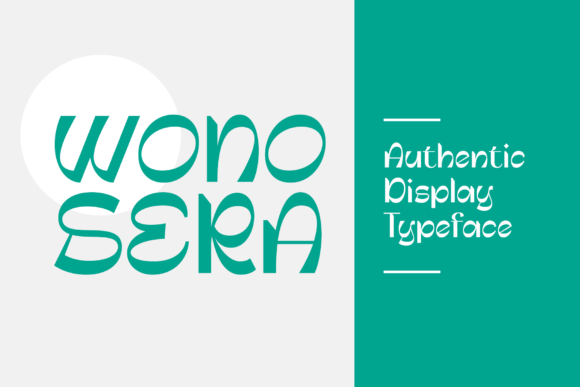
Wonosera: A Luxurious Display Font for Modern Design
When it comes to typography, the right font can make all the difference in how a design is perceived. Wonosera is one such typeface that stands out with its modern aesthetic and distinctive visual characteristics. Designed for display purposes, this font offers a blend of elegance and uniqueness that can elevate any typographic project.
Wonosera’s high contrast is one of its most notable features. This contrast gives the font a refined look, making it ideal for headings, logos, and other prominent text elements. The variation in stroke thickness adds depth and dimension, allowing designers to create visually engaging compositions without overcomplicating their layouts.
Unique Features That Set Wonosera Apart
What makes Wonosera truly stand out is its use of reverse contrast and unusual curved directions. These design choices give the font a sense of luxury and sophistication that is hard to achieve with more conventional typefaces. The curves are not just decorative—they add a level of complexity that makes each letterform feel intentional and well-crafted.
Designers who work with branding, editorial layouts, or digital interfaces often find that Wonosera brings a fresh perspective to their work. Its ability to maintain clarity while offering a distinctive style means it can be used in a wide range of applications, from print to web design.
The font’s versatility extends to both uppercase and lowercase characters. While many display fonts struggle with lowercase readability, Wonosera manages to balance form and function. This makes it suitable for longer text blocks as well, though it is still primarily recommended for short, impactful phrases.
Practical Applications of Wonosera
In the world of graphic design, consistency and impact are key. Wonosera allows designers to create a strong visual identity without relying on overly complex layouts. Whether it’s for a logo, a website header, or a magazine cover, the font provides a polished and professional look that resonates with audiences.
For businesses looking to establish a unique brand presence, Wonosera can be an effective tool. Its luxurious appearance can help convey a sense of exclusivity and quality, which is particularly useful in industries like fashion, luxury goods, or high-end services. When paired with appropriate color schemes and spacing, the font can enhance the overall aesthetic of a brand’s visual materials.
Web designers also benefit from using Wonosera in their projects. With the increasing emphasis on user experience, having a font that is both visually appealing and easy to read is essential. While Wonosera is best suited for display purposes, it can still be used effectively in headers and call-to-action buttons to draw attention and guide users through a site.
Considerations for Using Wonosera
Before incorporating Wonosera into a design, it’s important to consider the context in which it will be used. While the font excels in short, impactful text, it may not be the best choice for body copy. Its high contrast and intricate details can reduce readability when used in large blocks of text, especially on smaller screens or low-resolution displays.
Another factor to keep in mind is the availability of different weights and styles. Some fonts offer multiple variations that allow for greater flexibility in design. However, Wonosera’s current offerings may be limited, so designers should ensure that they have access to the specific styles needed for their projects.
It’s also worth noting that the font’s unique characteristics may require some adjustments in spacing and alignment. Kerning and tracking can play a significant role in ensuring that the text looks balanced and cohesive. Designers should take the time to fine-tune these settings to get the best results.
Best Practices for Working with Wonosera
To get the most out of Wonosera, start by experimenting with different combinations. Pairing it with simpler, more neutral fonts can help create a harmonious balance between the boldness of Wonosera and the subtlety of other typefaces. This approach is especially useful in multi-font designs where clarity and hierarchy are important.
When using Wonosera in digital formats, consider the performance implications. Large font files can affect page load times, so it’s advisable to optimize the font for web use. This may involve using subsets or reducing the number of glyphs included, depending on the specific needs of the project.
Finally, don’t be afraid to let Wonosera shine. Its unique design is meant to be noticed, so giving it space and proper styling can help it make the greatest impact. Whether it’s for a headline, a title, or a creative element, the font has the potential to transform a simple design into something truly memorable.